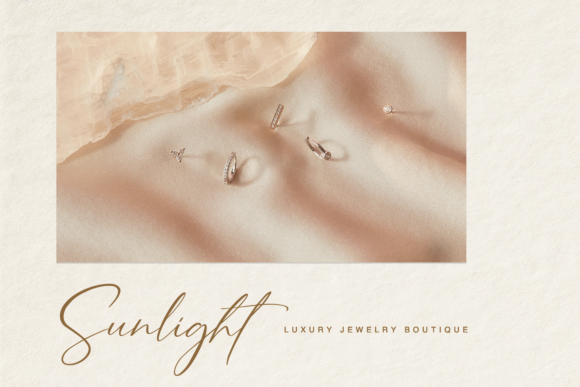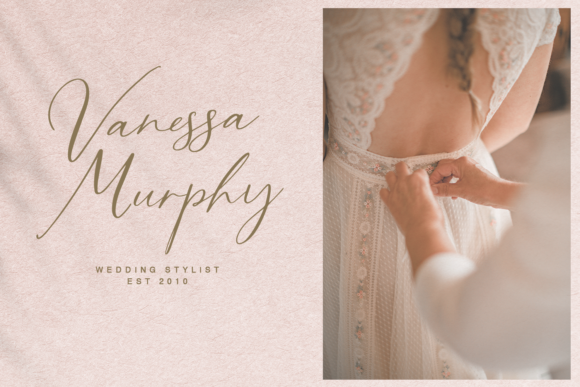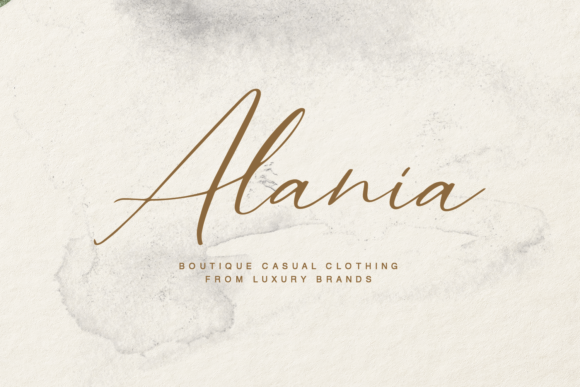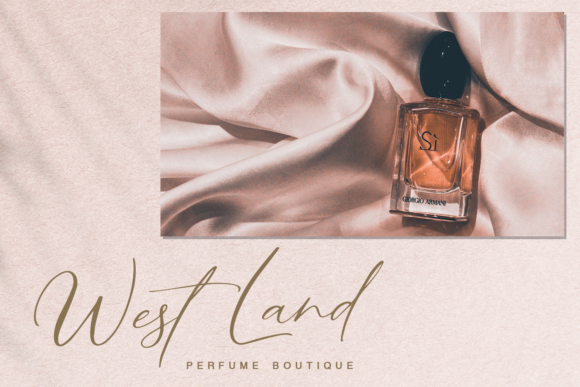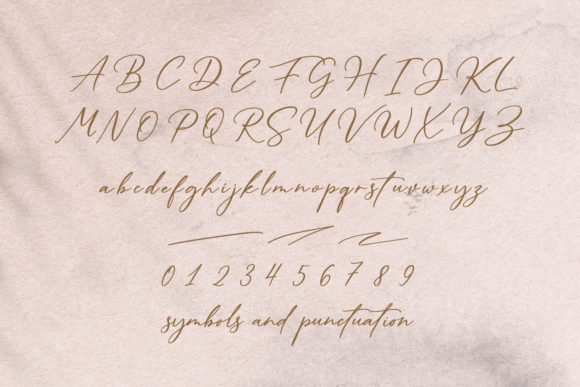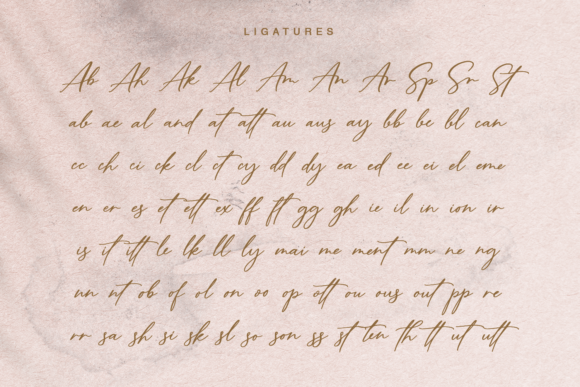
The Perfect Script Font for Your Next Creative Project
As a designer, you know that finding the right font can be the difference between a great design and an unforgettable one. It was during one of those late-night brainstorming sessions, surrounded by scraps of paper and endless cups of coffee, that I stumbled upon the perfect script font – the Amtenli Script Font. Its thin letters and elegant curves instantly captured my attention, and I knew I had to learn more.
The Amtenli Script Font is a versatile and beautiful script font that is perfect for creating stunning wedding invitations, beautiful stationery art, and eye-catching social media posts. Its delicate style and sophistication make it a valuable asset for designers looking to add a touch of elegance to their projects.
Key Features of Amtenli Script Font
- Font Family: Amtenli Script Font is a beautiful, elegant script font designed to add a touch of sophistication to your designs.
- Character Count: This font contains 250 characters, including uppercase and lowercase letters, numerals, and punctuation marks.
- Unique Characteristics: Amtenli Script Font features flowing, handwritten connections, subtle flourishes, and a vintage feel, making it perfect for invitations, wedding designs, and other creative projects.
Amtenli Script Font Review
At first glance, Amtenli Script Font appears to be a beautiful and elegant script font. ✨ The intricate details and flowing lines give it a touch of sophistication that’s perfect for high-end branding or invitations. The font’s versatility makes it suitable for various designs, from luxury to whimsical projects.
However, upon closer inspection, I noticed a few limitations that might affect its performance. ⚠️ Firstly, the font’s weight is quite uniform, which can make it difficult to create bold or italic variations without looking unbalanced. Secondly, some of the letterforms can be quite dense, which might affect readability in certain situations.
Overall, I’d say Amtenli Script Font is a lovely addition to any designer’s arsenal, but it’s not without its limitations. ✨ If you’re looking for a elegant script font for a specific project, it might just do the trick. Just be mindful of the potential issues mentioned above and adjust your design accordingly.
- Beautiful and elegant script design
- Perfect for high-end branding and invitations
- Good for luxury and whimsical projects
- Some letterforms can be dense and affect readability
- Uniform weight can make it difficult to create bold or italic variations
The Amtenli Script font is ideal for:
Special occasion greeting cards
Logo designs and branding
Quote and phrase graphics
Any design where a elegant, cursive font is desired
Alternatives to Amtenli Script Font
Playfair Display is an elegant and luxurious script font perfect for high-end designs. It features intricate details and ornate flourishes, making it ideal for wedding invitations, luxury branding, and other sophisticated projects. In comparison to Amtenli Script Font, Playfair Display has a more formal and refined feel, with a greater emphasis on traditional typography.
Lobster is a bold and eye-catching script font that works well for headings and titles. It features a modern, cursive design with a strong emphasis on expressiveness. Compared to Amtenli Script Font, Lobster has a more playful and casual feel, making it suitable for fashion, entertainment, and youth-oriented brands.
Q: Can I customize the Amtenli Script Font to fit my design needs?
Yes, the Amtenli Script Font is fully editable, allowing you to customize it to fit your design needs. You can adjust the font size, color, and style to suit your project’s requirements. Additionally, the font’s OpenType features allow for advanced typographic control, including ligatures, swashes, and ornaments.